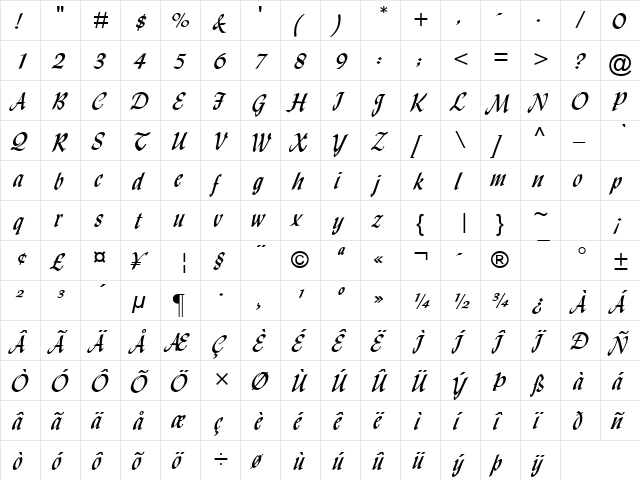
Lydian Cursive MT Regular
Design Context for Lydian Cursive MT Typeface
Lydian Cursive MT brings a calligraphic fluidity to the page — its connecting strokes and expressive curves give it an unmistakably human quality.
Font Pairing: Combine Lydian Cursive MT with a simple geometric sans for maximum contrast — the tension between flowing curves and clean structure is a classic typographic pairing.
Pro Tip: Use Lydian Cursive MT for short runs of text — names, titles, or taglines. Extended body copy in script faces tires the eye quickly.